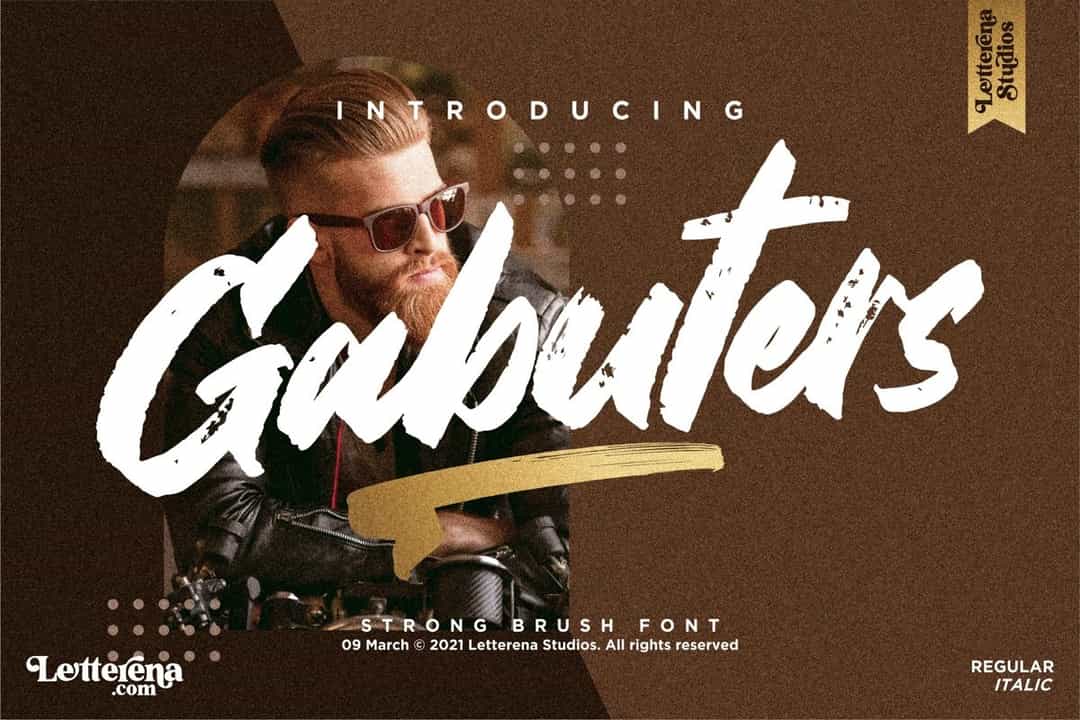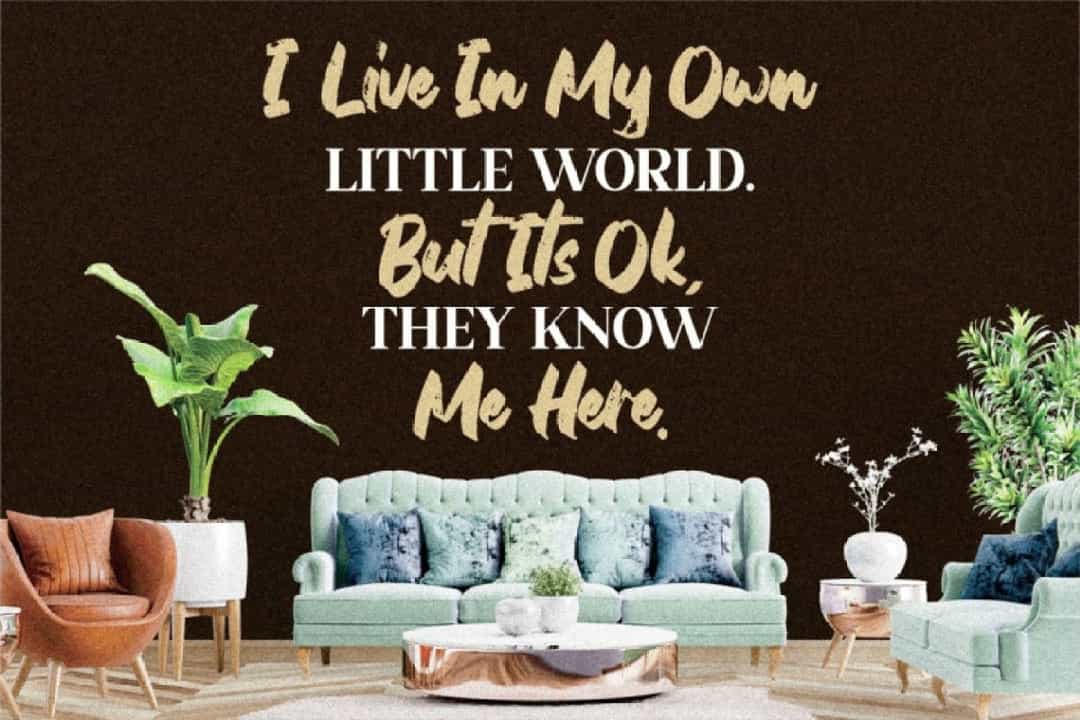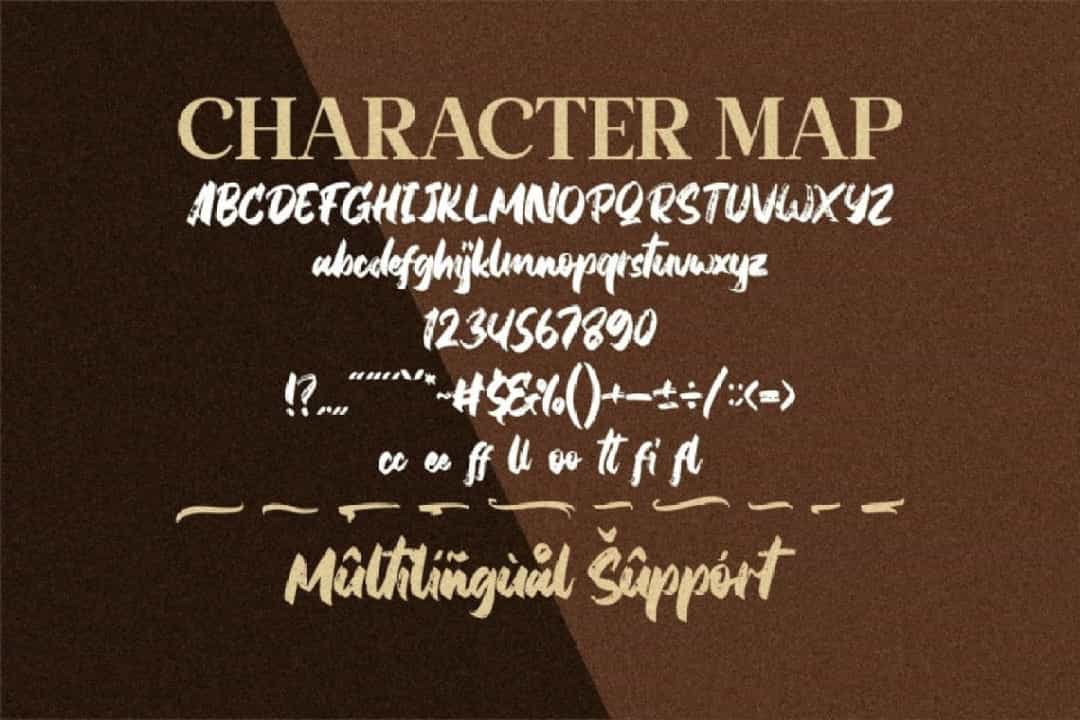
Gabuters is a perfect brush font that can be used also for logos and branding, home, textile and decorations objects, packaging for products like mugs, posters, quotes, clothing, bags, books, name cards, greeting cards, invitation cards, labels, photo watermark, special events or anything that requires the feeling of brush.